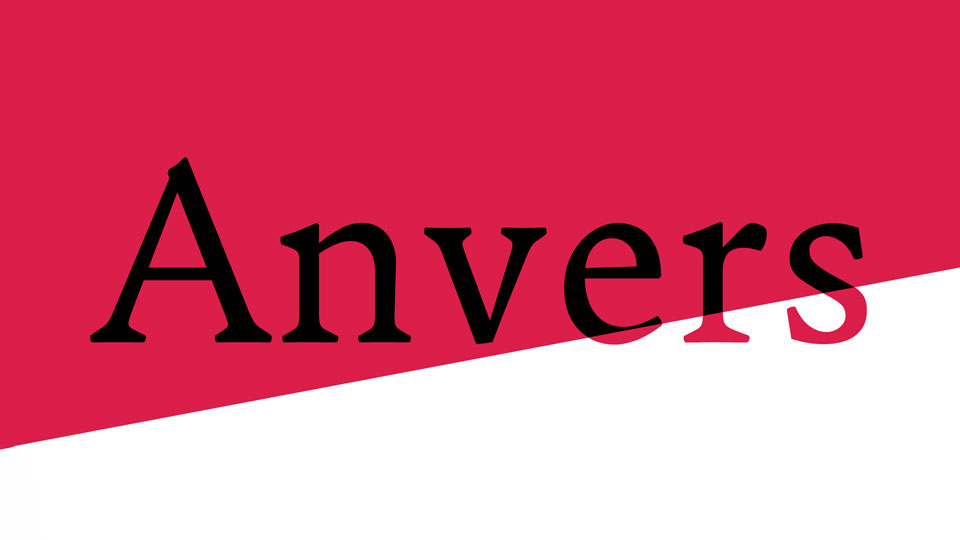
Download Anvers font, a Garamondesque workhorse serif typeface designed for easy readability over long stretches of small text in print and on-screen.
Designer: Ishtar van Looy